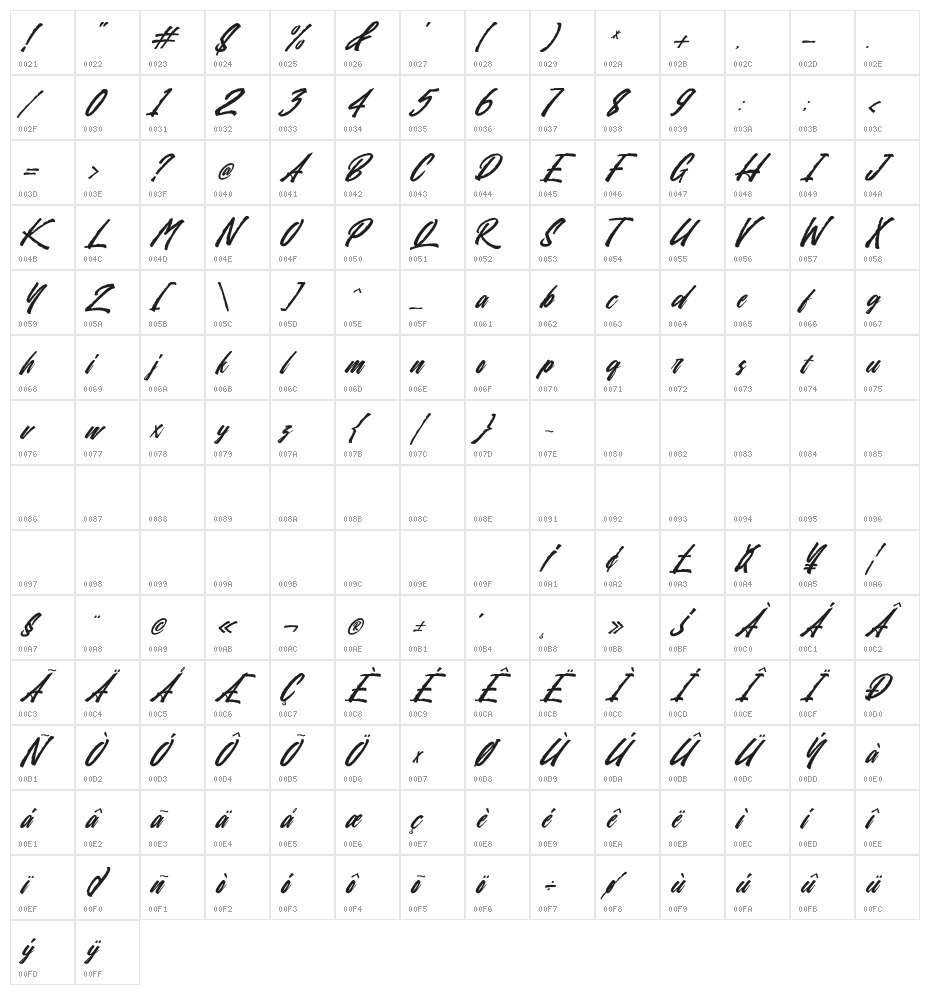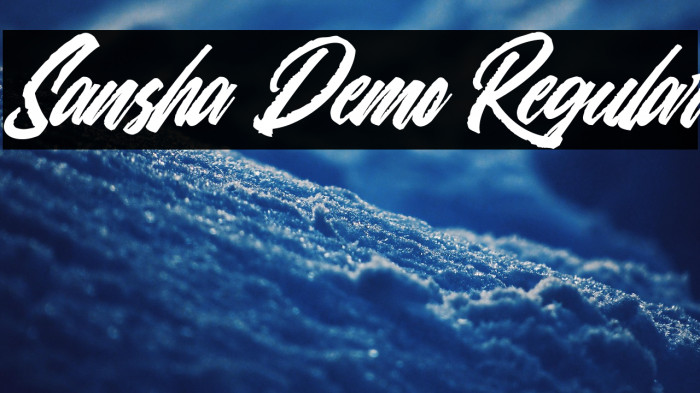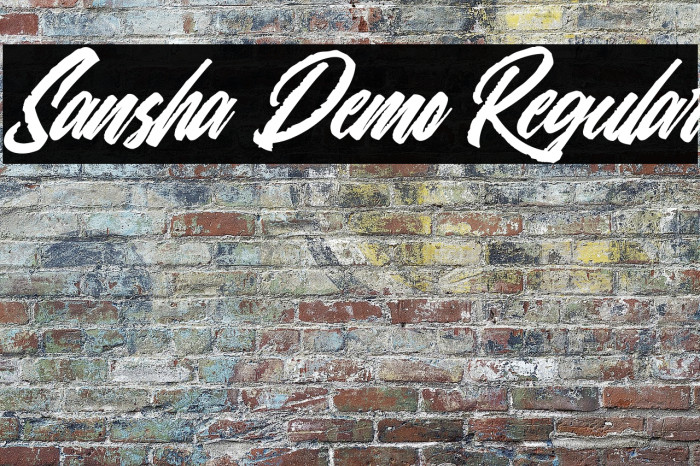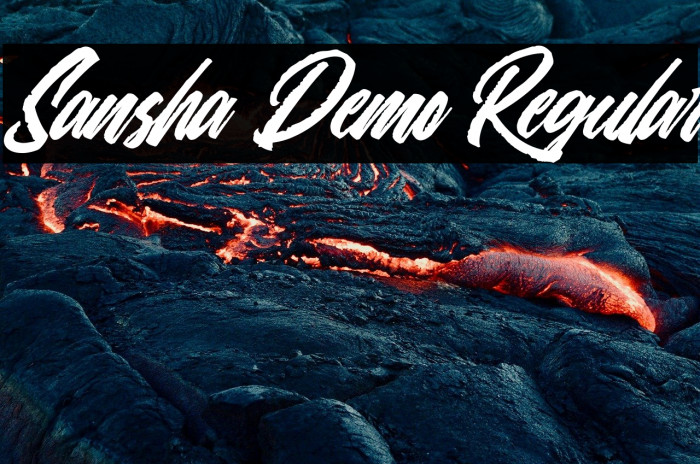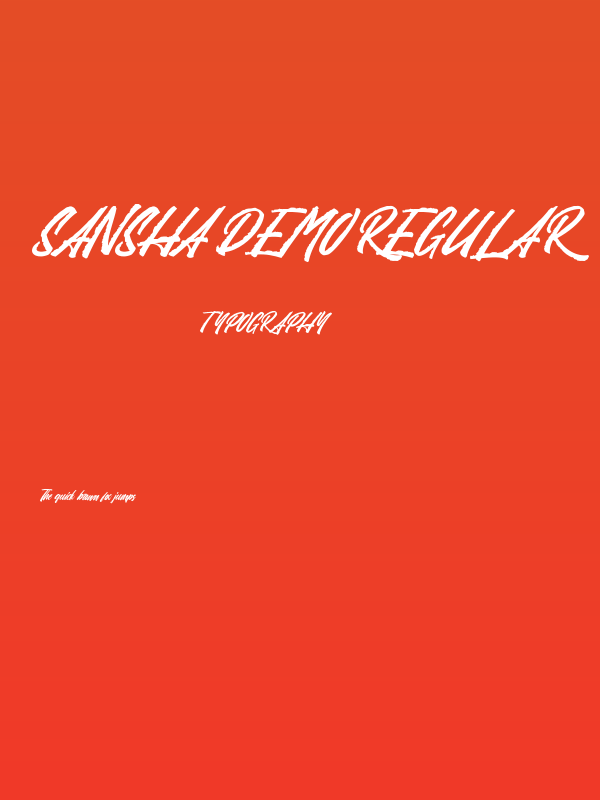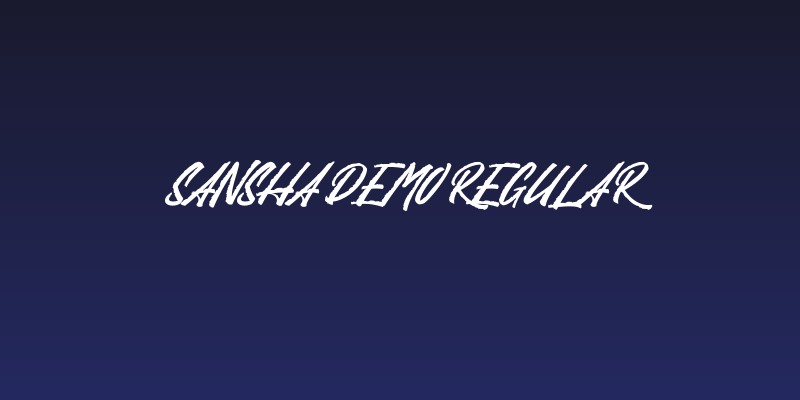
Sansha Demo Regular Font
Sansha Demo Regular Description
This font exudes a dynamic and energetic style, characterized by its bold, brush-like strokes that convey a sense of movement and fluidity. The letters are slightly slanted, giving it an italicized appearance, while maintaining a strong presence with thick lines. The uppercase and lowercase letters are well-balanced, with a consistent flow that enhances readability despite the artistic flair. Numbers and special characters are crafted with the same attention to detail, ensuring a cohesive look across all elements. This font is ideal for projects that require a touch of creativity and expressiveness.
| Proposed Projects | Ideal for branding, posters, and creative designs that need a bold, artistic touch. |